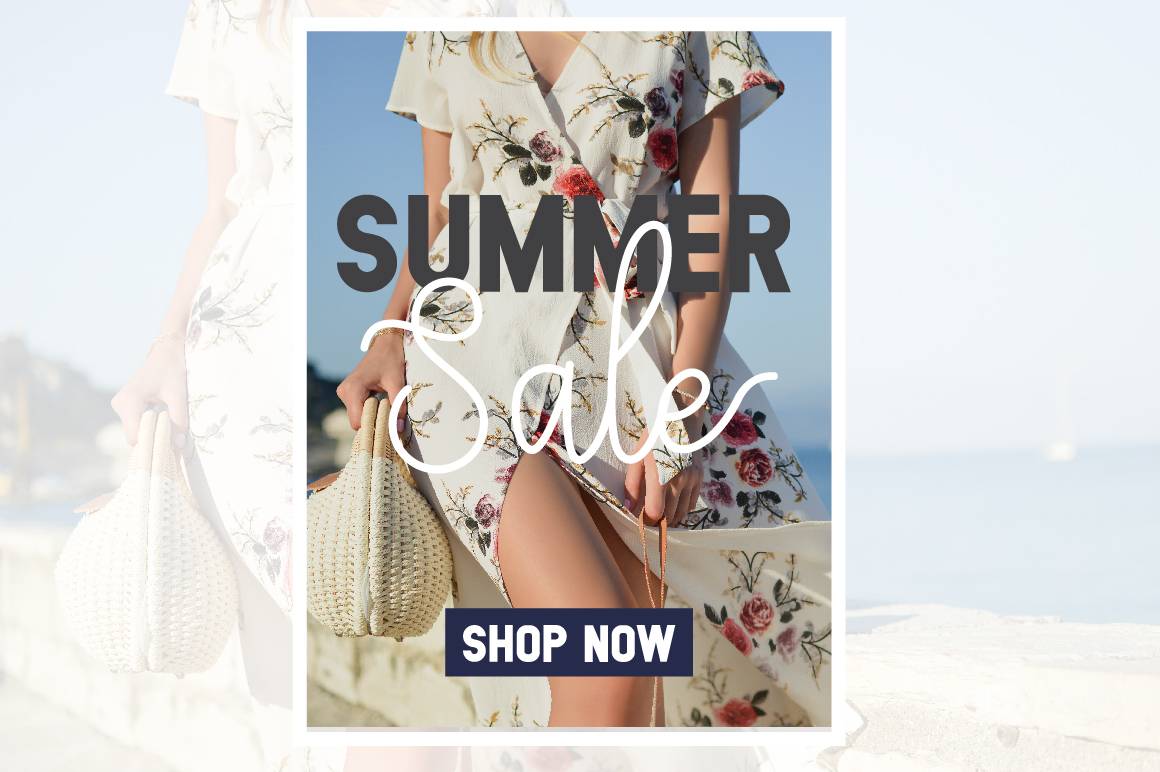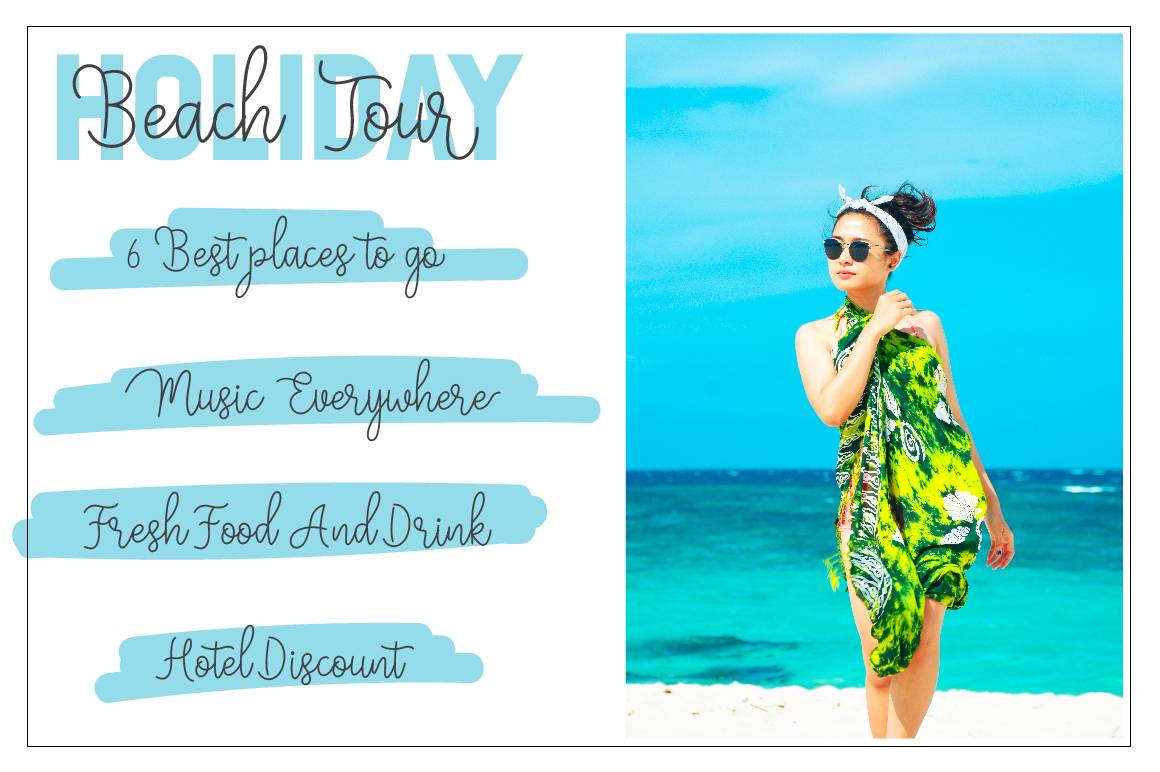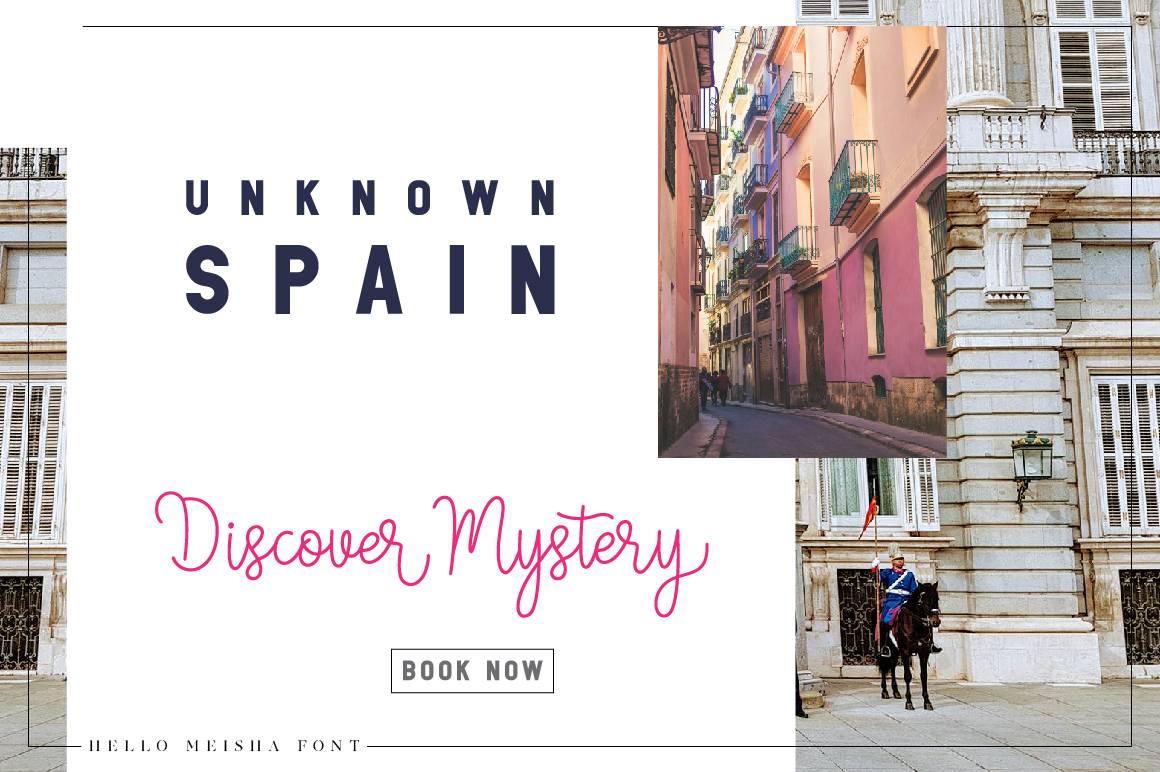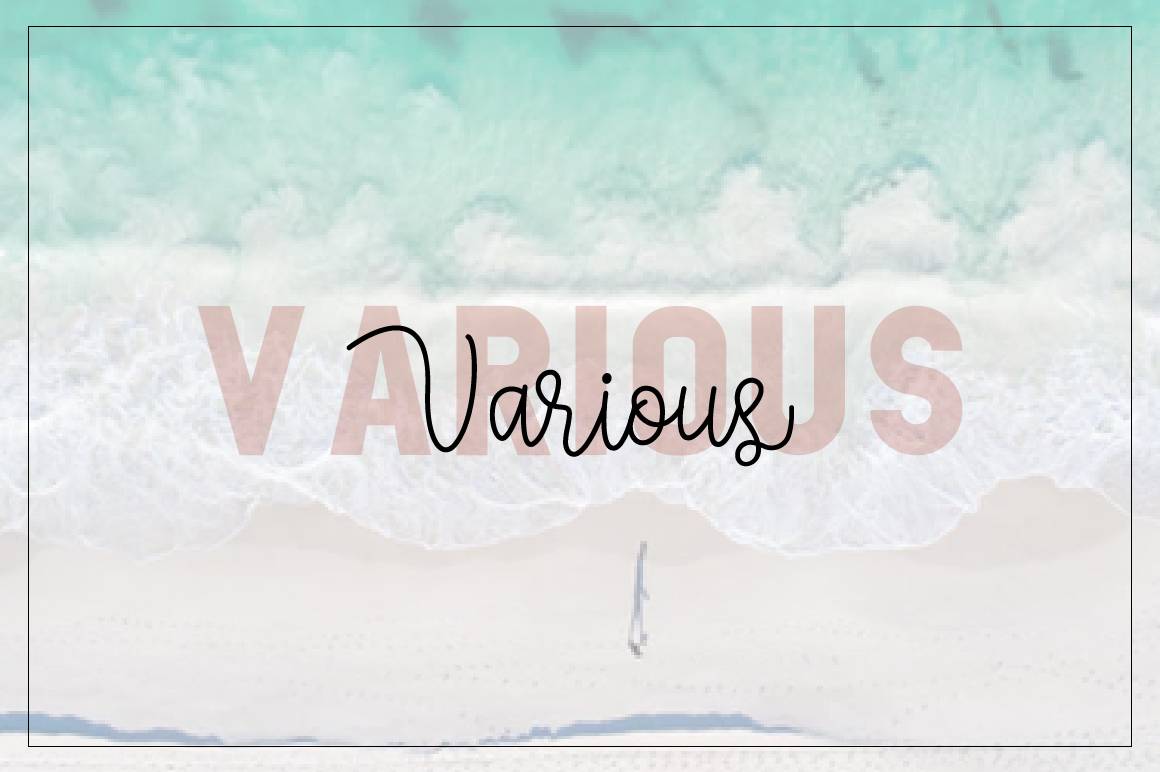
Hello Meisha is a delicate and elegant script font with a handwritten, flowing style that feels warm and personal. It features slender, tall letterforms with smooth curves and a consistent light weight, making it ideal for conveying a refined yet approachable aesthetic. Perfect for wedding invitations, branding, or any design that benefits from a feminine, friendly touch, this font adds sophistication without sacrificing readability.
Hello Meisha Font
About Hello Meisha Font
| Font family | Hello Meisha Font |